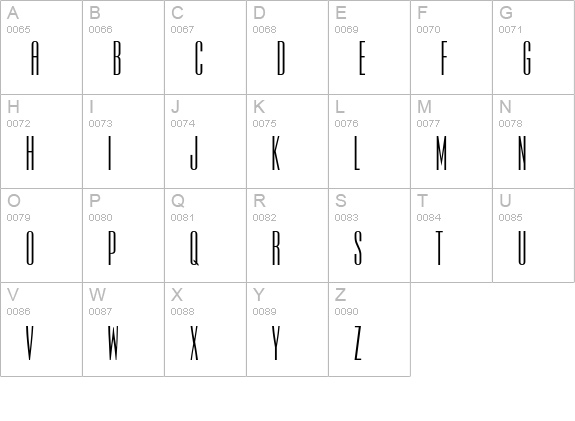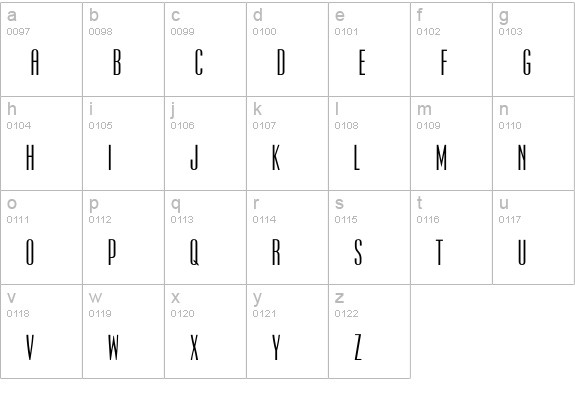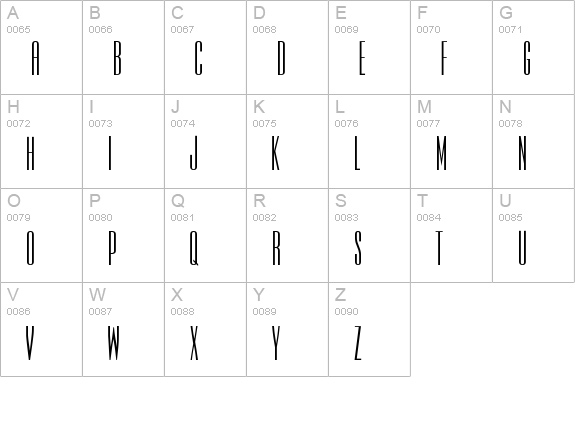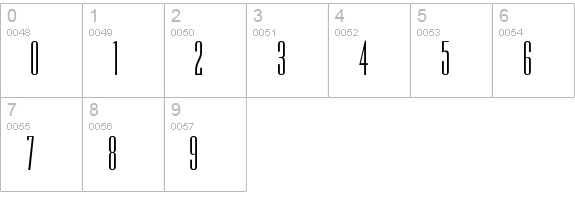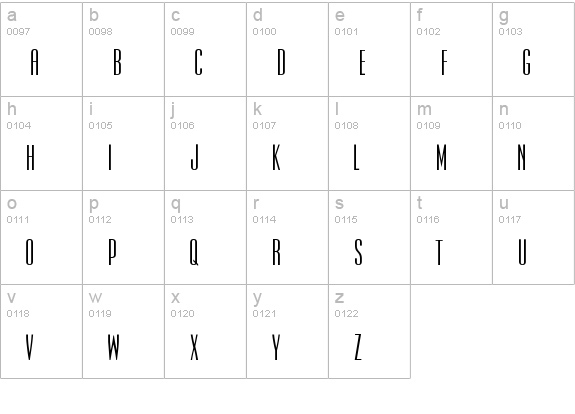
UltraCondensedSansOne Font Details
UltraCondensedSansOne is a sleek and sophisticated font that exudes a sense of modernity and elegance. With its incredibly narrow letterforms and clean lines, it is perfect for creating a bold and impactful visual statement. This font is designed to captivate attention and leave a lasting impression. The UltraCondensedSansOne font offers a unique combination of condensed letterforms and a sans-serif design, resulting in a truly distinctive and eye-catching typeface. It is the perfect choice for any project that requires a sleek and compact design, such as headlines, logos, and branding materials. What makes UltraCondensedSansOne even more remarkable is that it is available for free download at FontsMarket.com. This means that anyone can access and utilize this fantastic font without any cost or restrictions. Whether you are a professional designer or simply someone looking to add a touch of style to your personal projects, this font is a valuable asset that you can freely incorporate into your work. With its versatility and timeless appeal, UltraCondensedSansOne is sure to become a go-to font for designers and creatives alike. Its clean and modern aesthetic will effortlessly elevate any design, making it stand out from the crowd. So why wait? Download UltraCondensedSansOne now and experience the power of this exceptional font for yourself.